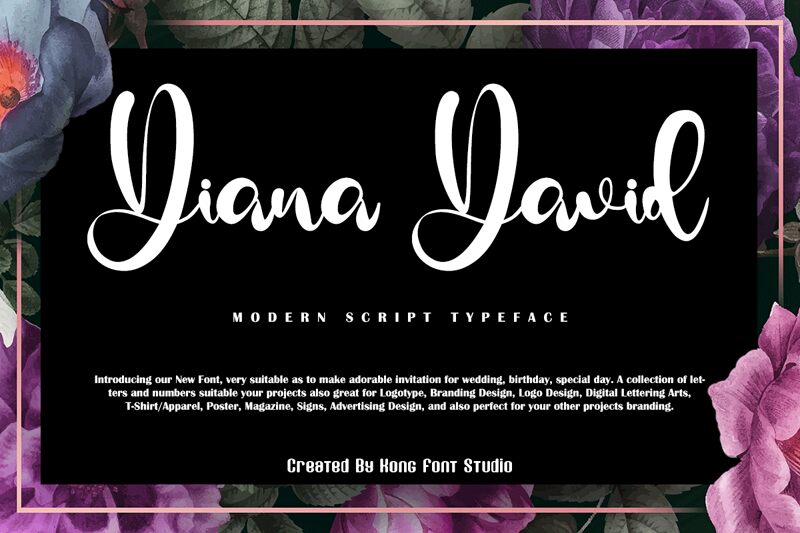
Diana David
Diana David is a stunning modern script font designed by Kong Font. With its fluid, flowing curves and elegant strokes, this typeface is perfect for adding a touch of sophistication to any project. Whether you're designing wedding invitations, creating branding materials for a high-end fashion brand or crafting a beautiful book cover, Diana David will elevate your work to the next level. Its semi-bold font weight and medium width make it versatile and easy to read at any size. Add a touch of luxury to your designs with Diana David – the perfect choice for any project that requires an air of refinement and elegance.